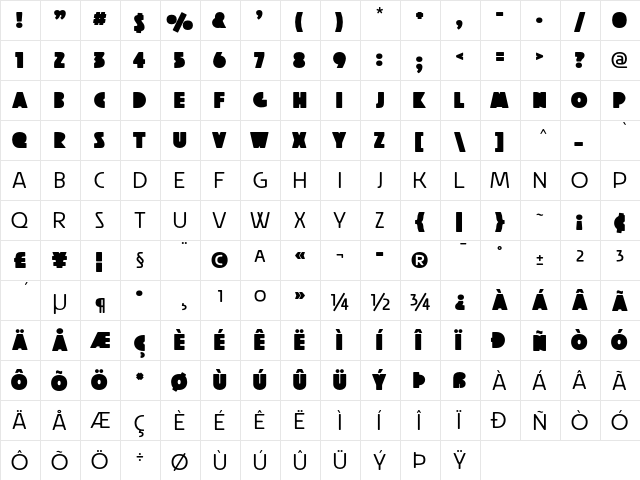
Raubam Regular
| Foundry | Michael Parson / Typogama |
| Designer | Michael Parson |
Design Context for Raubam Typeface
Raubam takes a measured approach to typography — its balanced proportions and neutral character make it a reliable workhorse for both digital and print work.